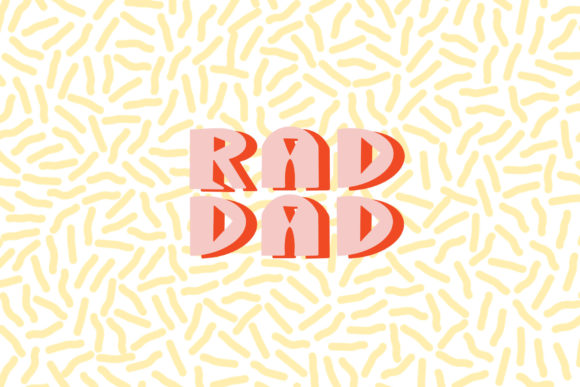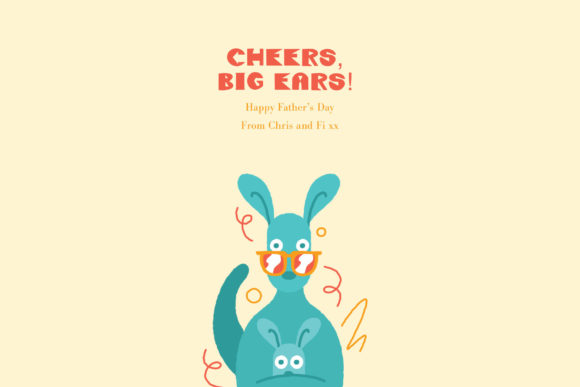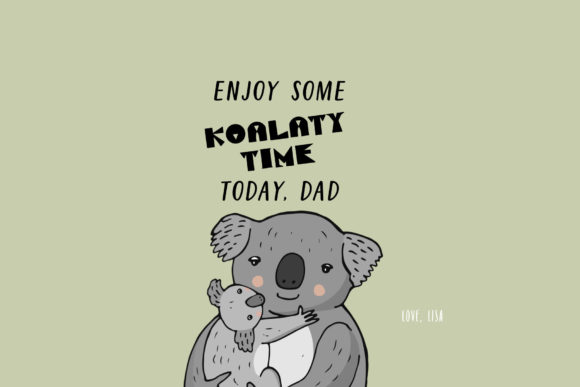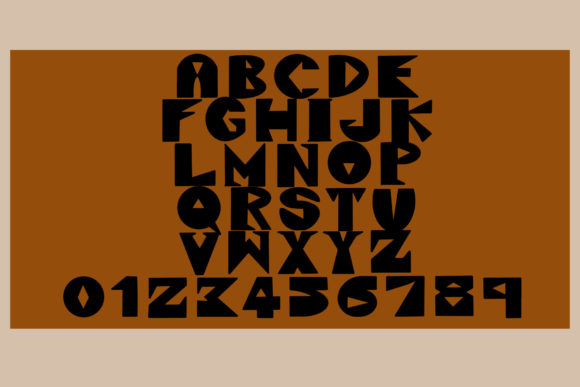
The Ultimate Design Game-Changer: Unleashing the Power of Daddy Font
I’ll never forget the time I was working on a project for a client who needed a bold, yet friendly font to capture the essence of their brand. I had spent hours scouring the internet for the perfect font, but nothing seemed quite right. That was until I stumbled upon Daddy Font – a cool, bold, and friendly display font that instantly elevated my design. In this article, we’ll dive into the world of Daddy Font, exploring its features, uses, and why it’s an incredible asset to your font library.
An Honest Review of Daddy Font
What I Love About Daddy Font
• Versatility: Daddy Font is suitable for a wide range of topics and projects, from branding and advertising to packaging and signage.
• Readability: The font’s bold and clear design makes it easy to read, even at smaller sizes.
• 💥 Impact: Daddy Font is sure to grab attention and make a statement in any design.
While Daddy Font is an amazing font, there are a few things to keep in mind:
• 🤔 Limited use in body text: Due to its bold design, Daddy Font may not be the best choice for body text or longer blocks of text.
• ⚠️ Overuse: As with any bold font, be careful not to overuse Daddy Font, as it can quickly become overwhelming.
The Backstory of Daddy Font
Daddy Font was designed with the goal of creating a bold, yet friendly font that’s perfect for display use. The designer wanted to create a font that’s both attention-grabbing and approachable, making it suitable for a wide range of projects.
Font Name Daddy Font
Author AEKKARAT CREAT
Q: What is Daddy Font?
A: Daddy Font is a cool, bold, and friendly display font that’s perfect for a wide range of projects.
Q: Is Daddy Font suitable for body text?
A: While Daddy Font is an amazing font, it’s not the best choice for body text or longer blocks of text due to its bold design.
Q: Is Daddy Font easy to read?
A: Yes, Daddy Font is designed to be clear and readable, even at smaller sizes.